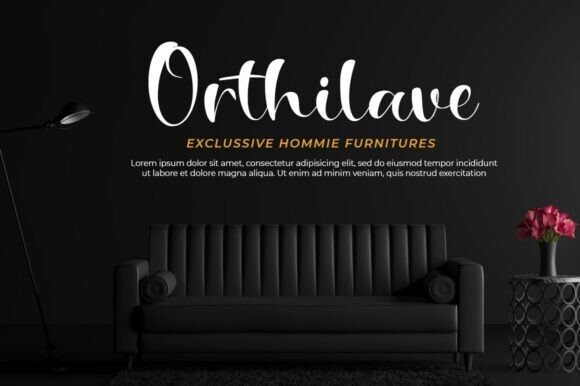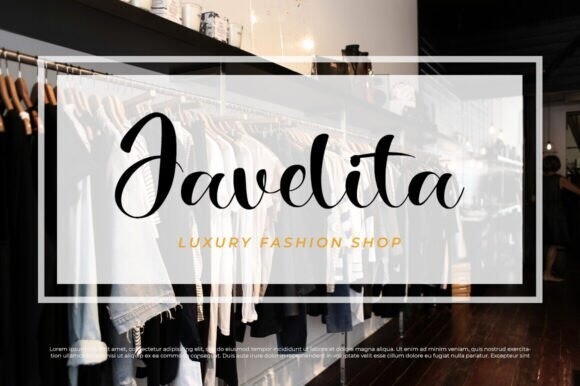
Workable Font
Designer: fanastudio
Workable font: offers gorgeous typographic perfect for many different projects such as logos & branding, invitations, stationery, wedding designs, social media posts, advertisements, product packaging, product designs, labels, photography, watermarks, special events or anything that needs handwriting taste.